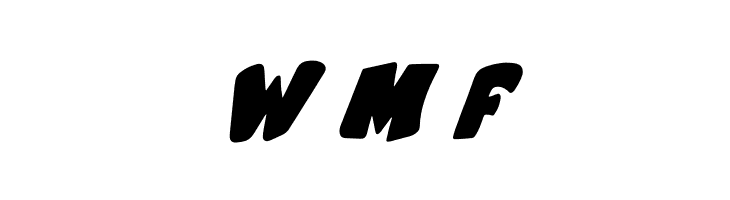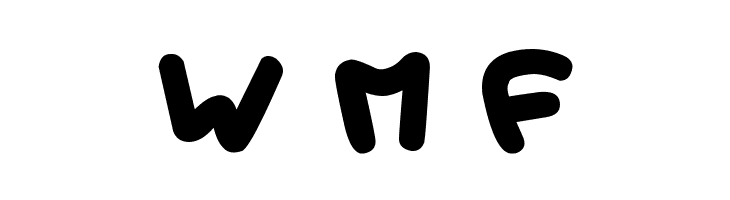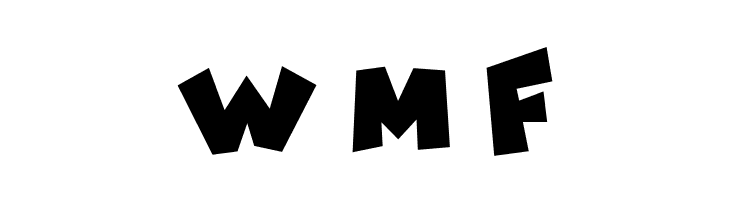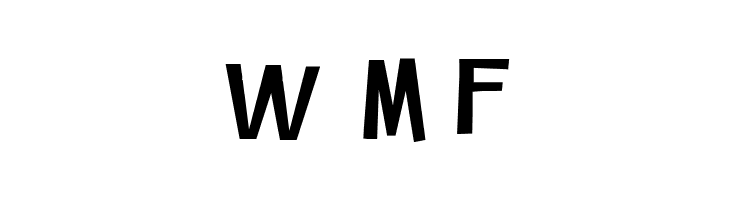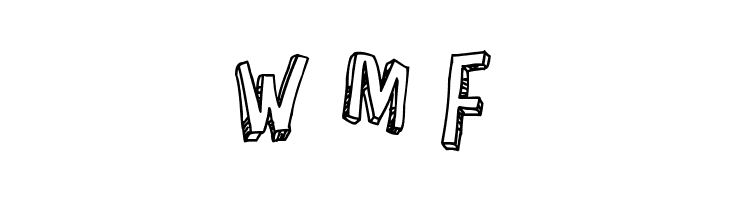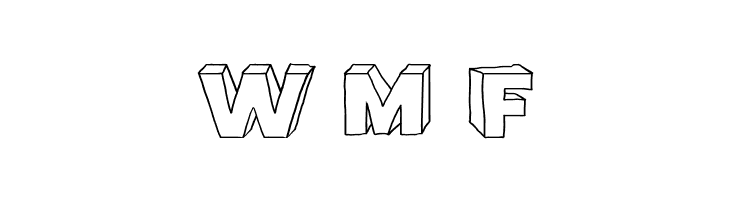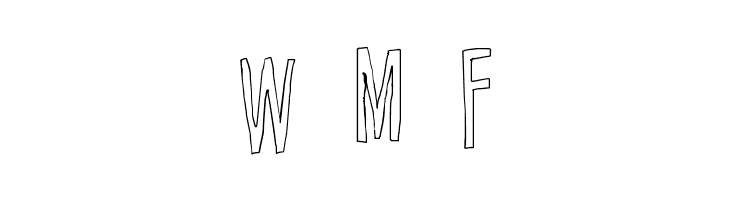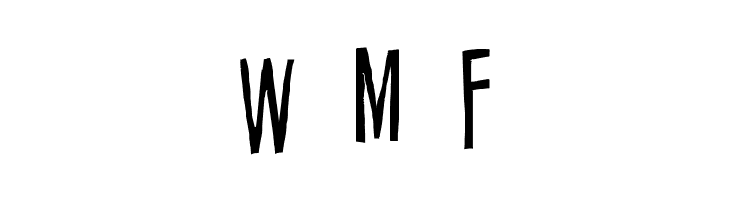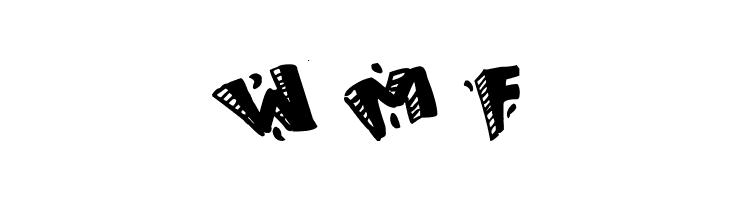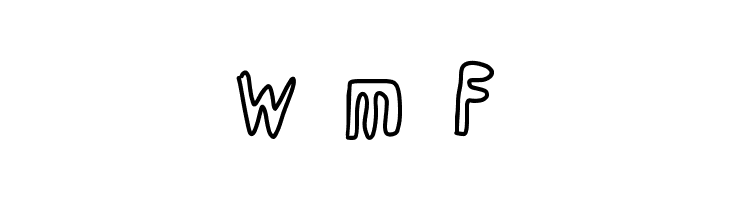
A playful, hand-drawn font with a cartoonish, whimsical style.
A playful, hand-drawn font with tall, narrow letters and a whimsical style.
A playful, hand-drawn font with bold, irregular strokes and a cartoonish style.
A playful, hand-drawn font with irregular, whimsical characters.
A playful, cartoonish font with bold, rounded outlines and a hand-drawn aesthetic.
A bold, 3D cartoon-style font with thick outlines and playful character design.
A playful, 3D cartoon block font with a Christmas theme and snow-capped letters.
A playful, cartoonish block font with festive snow accents.
A playful, cartoonish font with snow-capped, blocky letters perfect for festive designs.
A bold, playful font with rounded strokes and a cartoonish style.
A playful, rounded font with a cartoon-like style.
A bold, rounded typeface with a playful and friendly style.
A bold, italicized font with smooth, rounded characters and a playful style.
A playful, italicized font with smooth, rounded characters.
A playful, hollow outline font with smooth, rounded edges.
A playful, hollow cartoon-style font with outlined characters.
A playful, rounded font with a bold and friendly appearance.
A playful, bold font with rounded, thick strokes and a cartoonish style.
A bold, playful, and italicized font with a cartoonish style.
A playful, bold font with rounded, cartoonish characters.
A bold, cartoonish font with rounded, playful characters.
A bold, cartoonish font with a playful and dynamic style.
A bold, cartoonish font with rounded, tilted characters for a playful look.
A playful, hand-drawn style font with irregular, dynamic characters.
A playful, hand-drawn outline font with a whimsical and cartoonish style.
A bold, playful font with cartoonish, uneven strokes and exaggerated curves.
A playful, hand-drawn font with a cartoonish, whimsical style.
A bold, playful font with a cartoonish style, perfect for fun and lively designs.
A playful, hand-drawn font with a 3D relief effect, perfect for comic and creative projects.
A playful, sketch-like outline font with a cartoonish flair.
A playful, hand-drawn font with a cartoon-like, italicized style.
A playful, hand-drawn font with a whimsical and informal style.
A playful, hand-drawn font with rounded, whimsical characters.